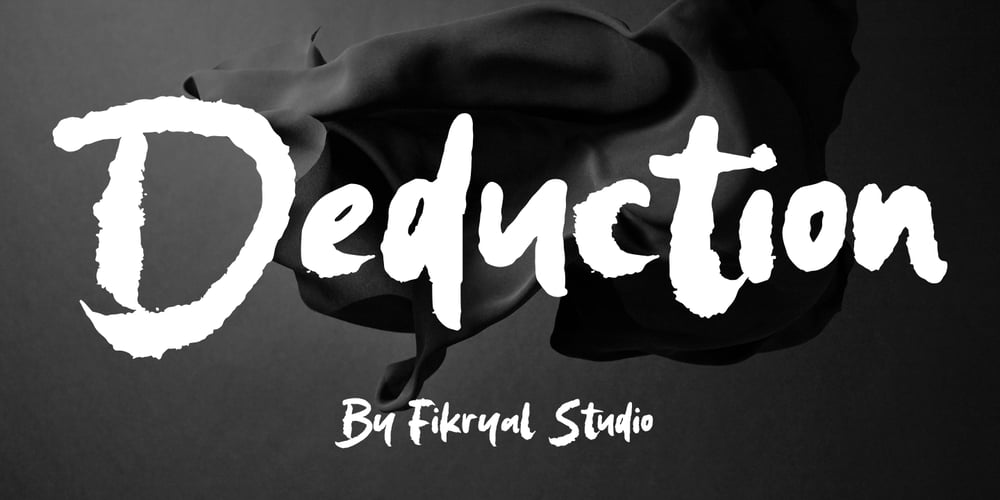
Deduction
Deduction font
Deduction Font Family was designed by Muhammad Fikry and published by Fikryal. Deduction contains 1 styles and family package options. Deduction – Handbrush Display Font, a bold and dynamic typeface that brings the raw, expressive energy of hand-brushed lettering to your design projects. Perfect for headlines, posters, logos, and more, Deduction stands out with its striking brush strokes and organic feel. Each letter is meticulously crafted to maintain a natural flow and vibrant personality, ensuring your text commands attention and exudes creativity.If you have any questions please don’t hesitate to contact mefollow my Instagram: fkryallThank you